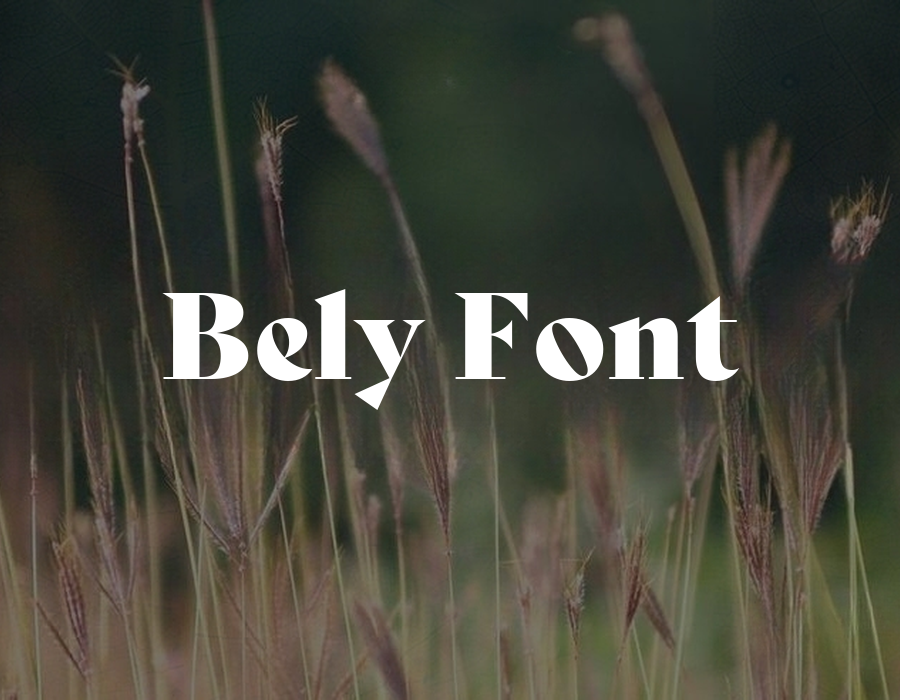
About Bely Font
Bely is a modern serif typeface that skillfully blends classic elegance with contemporary flair. Its most recognizable features are the sharp, wedge-shaped serifs and a pronounced but graceful contrast between thick and thin strokes. Designed with extensive language support and a range of weights from Light to Black, it offers great versatility for both expressive headlines and refined long-form text. The font's sophisticated yet approachable personality makes it an excellent choice for upscale magazines, brand identities, book design, and any project requiring a touch of distinctive, confident style.